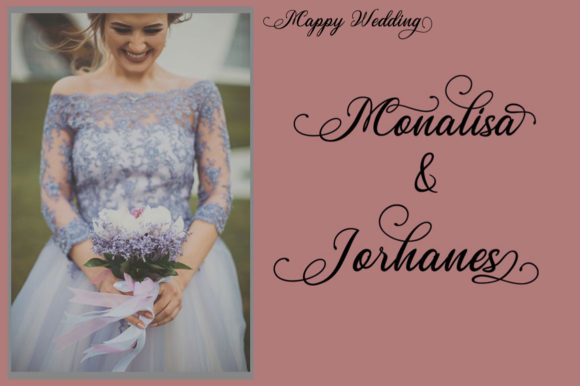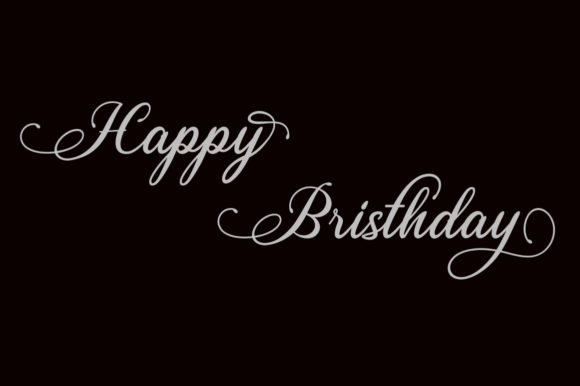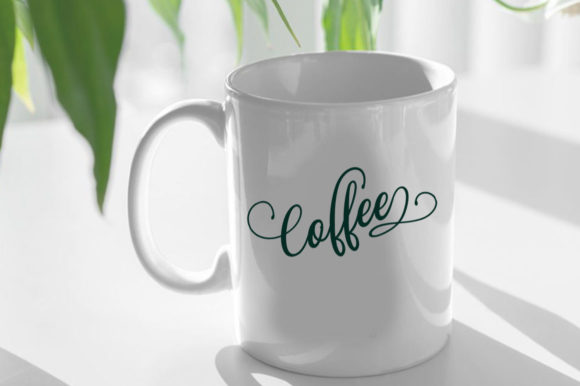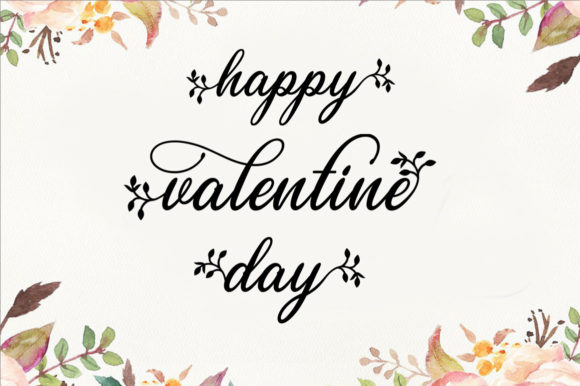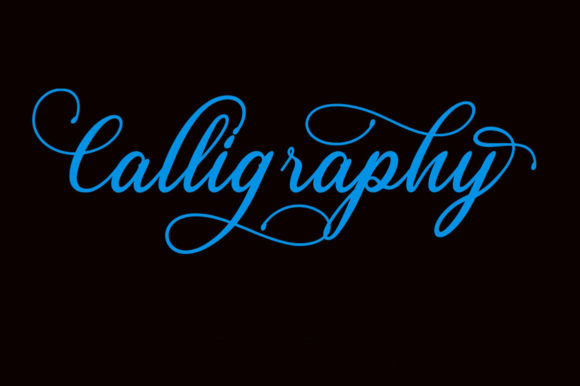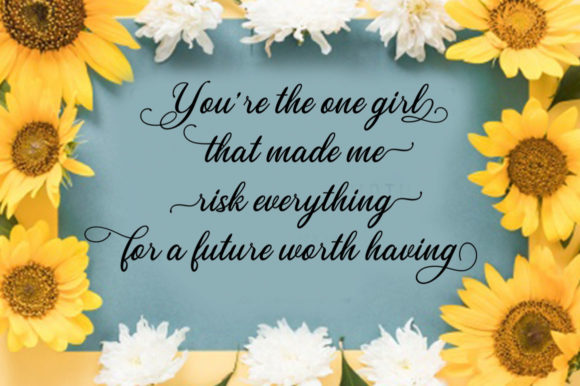
Introduction to Chindy Font
Chindy features beautiful swashes and lovely ligatures, making it a one-of-a-kind handwritten font.
Key Features of Chindy Font